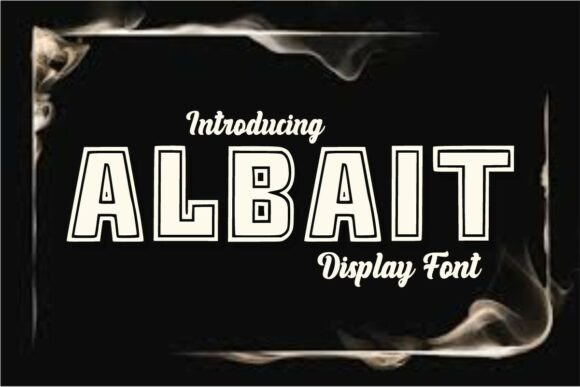
Introducing Albait Font: The Ultimate Display Font for Joyful and Resilient Designs
Are you looking for a font that can add a touch of joy and resilience to your designs? Look no further than Albait Font, a unique display font inspired by vertical lines. With its clean lines and relaxed feel, Albait Font is perfect for creating summer posters, event flyers, and playful branding that stands out from the crowd.
What Makes Albait Font Special?
Albait Font is a one-of-a-kind display font that is designed to bring a sense of joy and resilience to any creative project or message. Its unique design is inspired by vertical lines, which gives it a distinctive and modern look. The font’s clean lines and relaxed feel make it perfect for designs that require a playful and cheerful touch.
Albait Font is a versatile font that can be used for a wide range of design projects, from summer posters and event flyers to playful branding and packaging. Its unique design makes it an excellent choice for designers who want to add a touch of personality to their work.
Key Features of Albait Font
- Unique Display Font: Albait Font is a unique display font that is designed to stand out from the crowd.
- Inspired by Vertical Lines: The font’s design is inspired by vertical lines, which gives it a distinctive and modern look.
- Clean Lines and Relaxed Feel: Albait Font has clean lines and a relaxed feel, making it perfect for designs that require a playful and cheerful touch.
- Perfect for Summer Posters and Event Flyers: Albait Font is perfect for creating summer posters and event flyers that require a fun and playful touch.
- Playful Branding: The font is also great for playful branding and packaging that requires a unique and modern design.
How to Use Albait Font in Your Designs
Albait Font is easy to use and can be incorporated into a wide range of design projects. Here are some tips on how to use Albait Font in your designs:
- Use it for Headings: Albait Font is perfect for headings and titles, where its unique design can really shine.
- Pair it with Other Fonts: Albait Font can be paired with other fonts to create a unique and interesting design.
- Experiment with Colors: The font looks great in a wide range of colors, so don’t be afraid to experiment and find the perfect color for your design.
Benefits of Using Albait Font
There are many benefits to using Albait Font in your designs. Here are some of the main advantages:
- Unique Design: Albait Font has a unique design that will make your designs stand out from the crowd.
- Playful and Cheerful Feel: The font has a playful and cheerful feel that is perfect for designs that require a fun and relaxed touch.
- Versatile: Albait Font is a versatile font that can be used for a wide range of design projects.
- Easily Readable: The font is easily readable, making it perfect for designs that require a clear and concise message.
Who Can Benefit from Using Albait Font?
Albait Font is a versatile font that can be used by a wide range of designers and businesses. Here are some examples of who can benefit from using Albait Font:
- Graphic Designers: Graphic designers can use Albait Font to create unique and interesting designs for their clients.
- Marketing Agencies: Marketing agencies can use Albait Font to create playful and cheerful branding and advertising materials.
- Small Businesses: Small businesses can use Albait Font to create unique and modern branding and packaging.
- Event Planners: Event planners can use Albait Font to create fun and playful event flyers and posters.
Albait Font is a unique and versatile display font that is perfect for designs that require a playful and cheerful touch. With its clean lines and relaxed feel, Albait Font is perfect for summer posters, event flyers, and playful branding. Its unique design makes it an excellent choice for designers who want to add a touch of personality to their work.
Whether you’re a graphic designer, marketing agency, small business, or event planner, Albait Font is a great choice for any design project that requires a fun and modern touch.